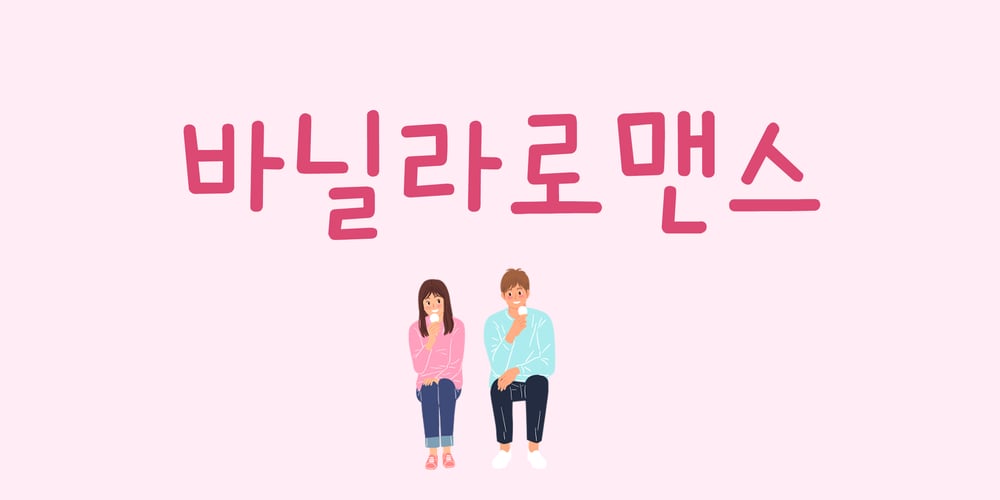
Od Vanillaromance Font Family was designed by Together Group and published by TogetherGroupFonts. Od Vanillaromance contains 1 styles and family package options. It is made up of a free-feeling stroke, and the shape of the children is also a font that shows a lovely and neat shape with fun elements.